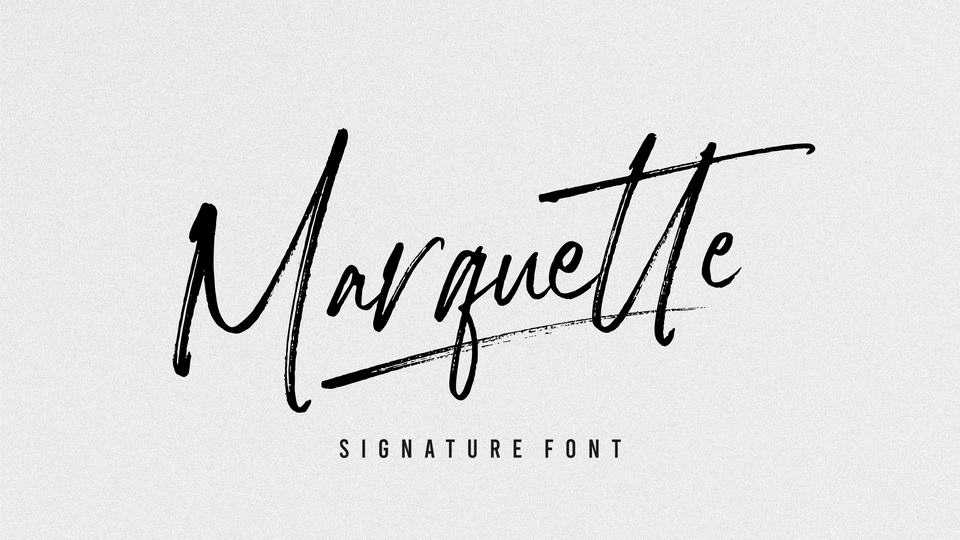
Download Marquette font, a rustic handwritten script with sharp scratch characters. With Marquette font each word produced will give its own uniqueness.
Designer: Letteralle Studio